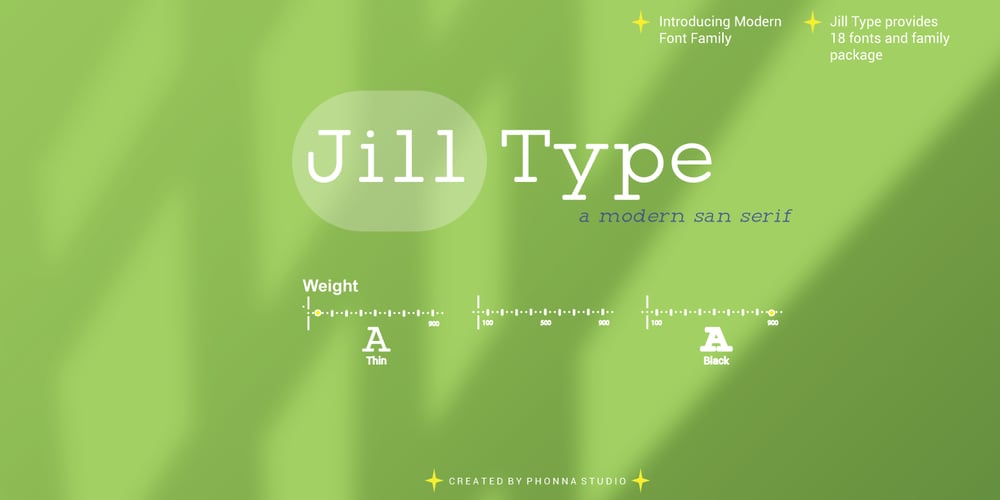
Jill Type Font Family was designed by Muhammad Suhery and published by Phonnastudio. Jill Type contains 9 styles and family package options. Introducing Jill Type, a modern sans-serif font family inspired by the friendly typewriter sans to bring the nostalgia of classic. Jill is designed for clarity, legibility, and visual comfort in a wide variety of creative projects. Jill Type provides 9 families of the font.